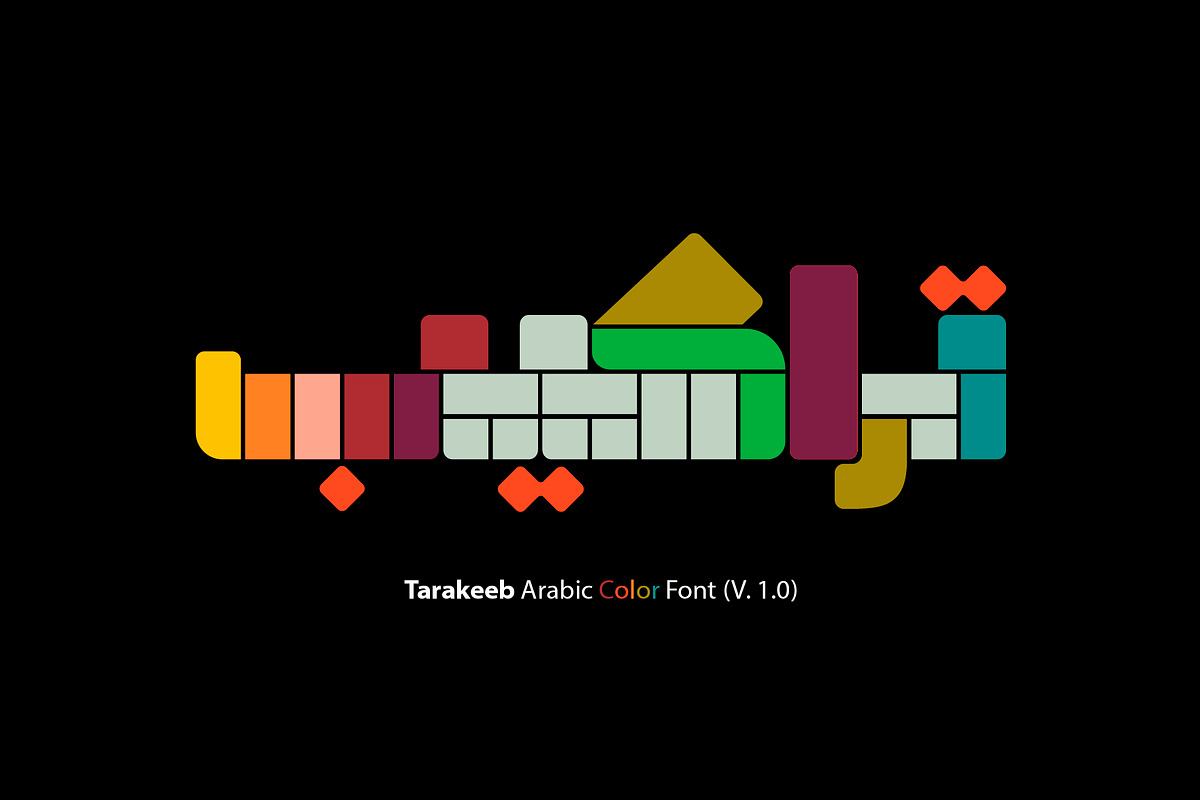
Tarakeeb - Arabic Color Font خط عربي Free Download
Discover the vibrant possibilities with Tarakeeb - Arabic Color Font Free Download, a beautifully expressive typeface ideal for creative Arabic projects. You need to purchase this font for commercial use. However, you can easily access Tarakeeb - Arabic Color Font Free Download for personal or testing purposes. Its colorful and artistic design brings cultural authenticity and visual excitement, perfect for branding, posters, digital media, and social platforms. Designers value its unique aesthetic, blending traditional calligraphy with modern color techniques, enhancing readability and style. Download Tarakeeb - Arabic Color Font Free Download today and add an engaging and sophisticated touch to your Arabic typography projects.